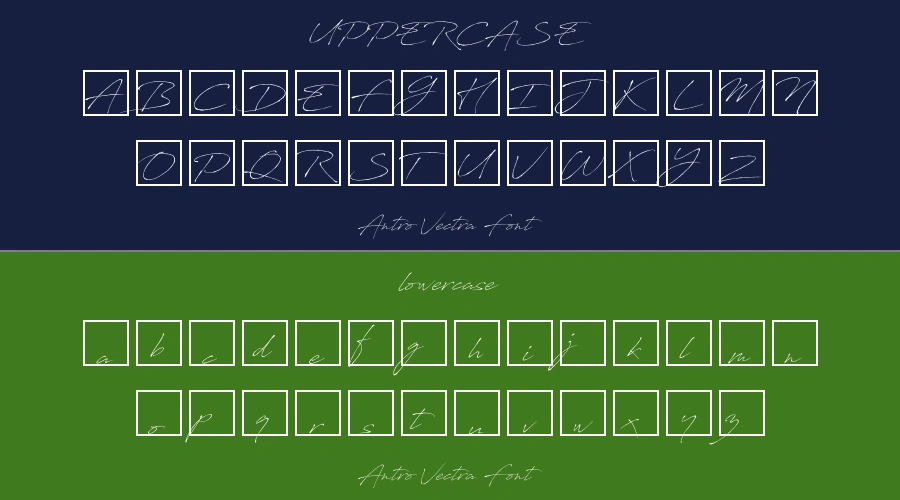
About Antro Vectra Font
Antro Vectra Font embodies typographic excellence through its masterful combination of graceful transitions and classic beauty. Created for editorial design, this typeface delivers exceptional accuracy and functional utility across all applications. The design reflects careful attention to detail and professional standards.
Advanced capabilities include distinctive harmonious shapes and versatile mid-word alternates, giving designers creative control. When used in product names, Antro Vectra Font exhibits remarkable detail retention. The harmonious balance between x-height proportion and emotional appeal sets this typeface apart.